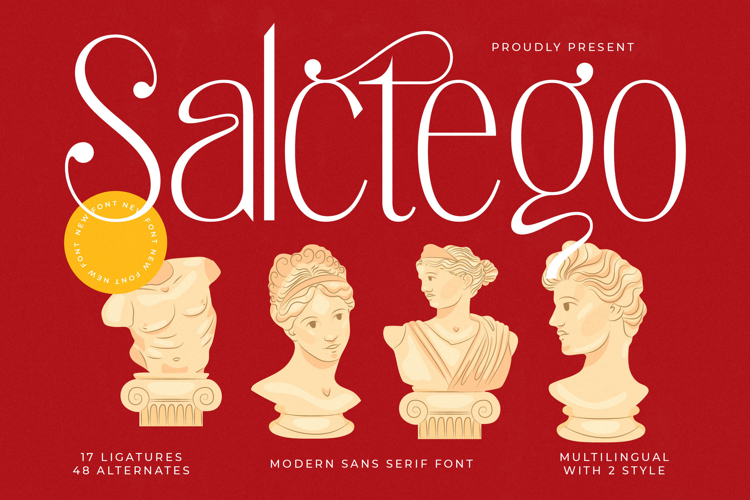
Salctego - Modern Sans Serif Font
Elevate your designs with timeless grace and modern precision. Salctego - Modern Sans Serif Font blends classical elegance and contemporary sophistication, instantly capturing attention. Its distinctive presence and high-contrast strokes deliver a powerful visual statement, making it perfect for projects demanding clarity and artistic flair. This font radiates refined beauty, setting your work apart.
Unlock unparalleled design versatility with Salctego - Modern Sans Serif Font. Featuring 17 meticulously crafted ligatures and 48 stunning alternates, it offers an expansive toolkit for creating truly unique typographic expressions. Two distinct styles further enhance its flexibility, empowering designers to craft bespoke aesthetics that resonate deeply with discerning audiences.
Achieve global reach and seamless communication with remarkable ease. With its extensive multilingual support, Salctego - Modern Sans Serif Font adapts seamlessly across global markets, making it incredibly versatile for international projects. This robust linguistic capability ensures your message retains impact and professional utility across diverse audiences worldwide.